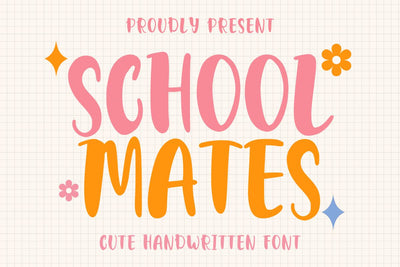
School Mates - Cute Handwritten Font
Hi, Introducing School Mates - Cute Handwritten Font
A display font with a cheerful and cute style. This font is made in original handwriting style. This font is cool for greeting cards, children's product labels, snack packaging, kids' party invitations, children's clothing designs, baby room wall decor, DIY craft product kits, welcoming cards, personalized wall stickers, and home decor products